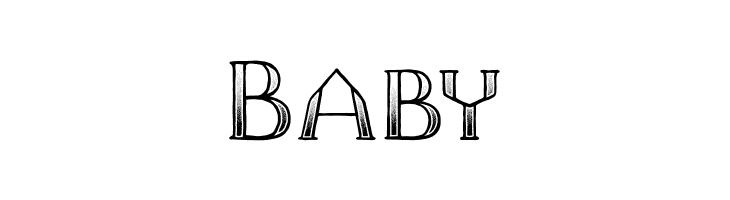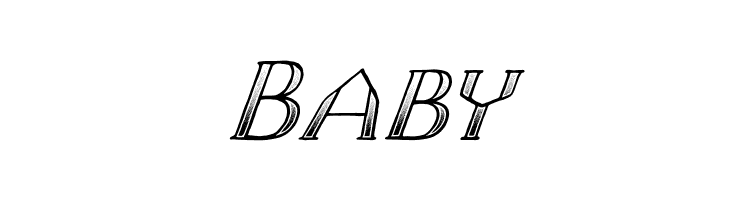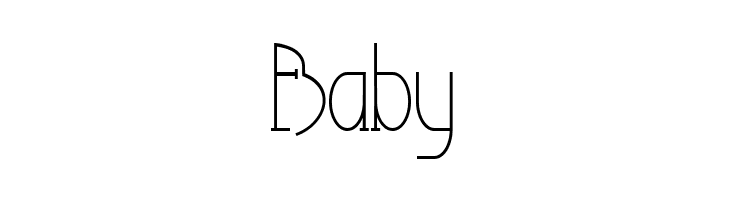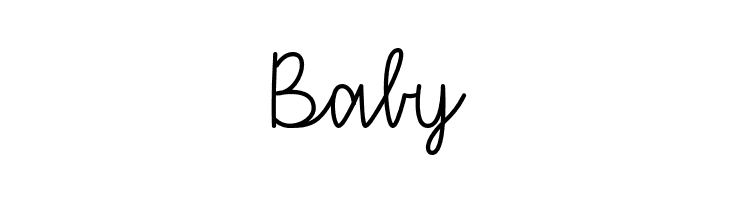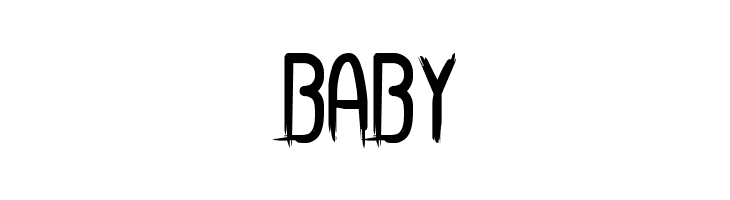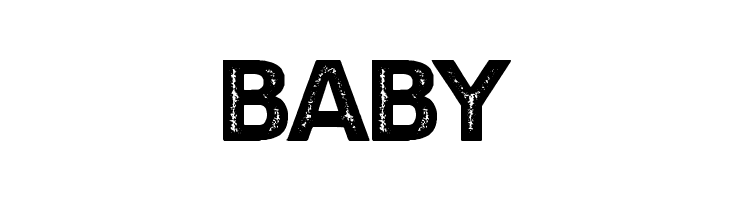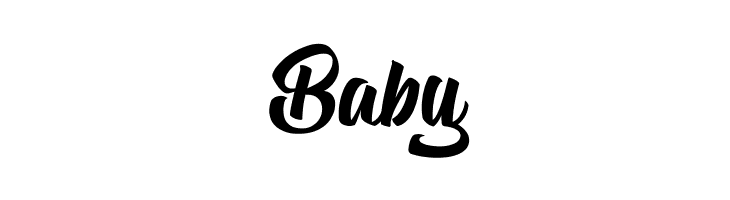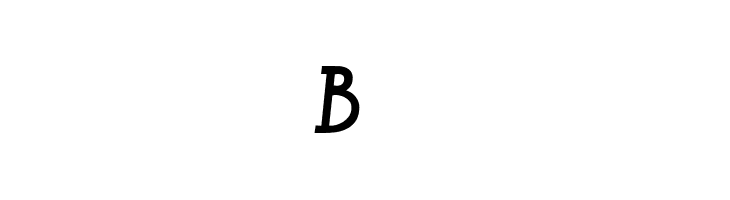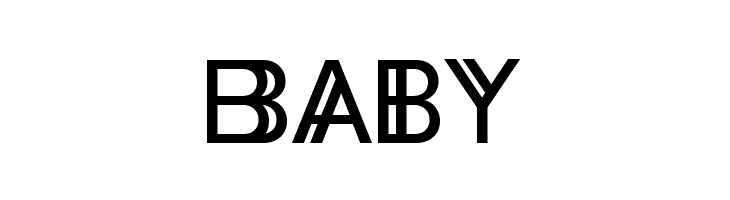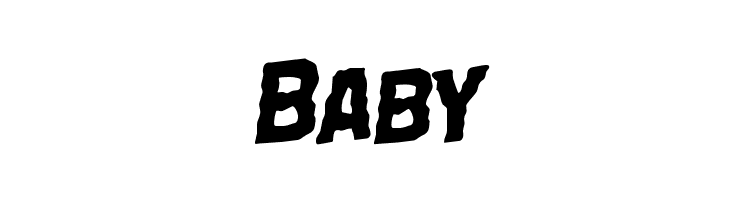
A bold, rugged font with jagged edges and a distressed appearance.
A bold, italicized font with jagged edges and a dynamic, energetic style.
A bold, condensed font with a rough, hand-drawn, and distressed style.
Bold, condensed, and italic with a textured, dynamic style.
A bold, rugged font with jagged edges, perfect for dramatic themes.
A bold, jagged, and expanded italic font with a chaotic and energetic style.
A bold, italic font with dynamic, irregular edges and strong visual impact.
A bold, distressed font with a rugged and dynamic style.
A bold, rugged font with irregular, jagged edges and a distressed look.
A bold, jagged, and heavily italicized font with a chaotic, torn-paper aesthetic.
A bold, distorted, hand-drawn style font with an edgy appearance.
A bold, rugged font with jagged edges and a distressed, hand-drawn style.
A bold, staggered italic font with a dynamic and edgy style.
A bold, staggered font with a dynamic, hand-drawn style.
A playful, casual handwritten font with smooth, rounded letters.
A playful, casual handwritten font with smooth, flowing lines.
A bold, distressed font with sharp, jagged edges and a grunge-like appearance.
A bold, cursive font with elegant loops and a dynamic flow.
A playful, bubbly font with thick, rounded characters ideal for creative projects.
A bold, bubbly, and italicized font with a playful, rounded design.
A bold, distressed script font with dynamic curves and a rugged texture.
A bold, dynamic serif font with a slightly condensed and elegant style.
A modern, playful font with rounded characters and unique curves.
A bold, decorative font with intricate line details and high contrast, perfect for vintage-themed projects.
A bold, decorative font with vintage flair and intricate line work.
A bold, italic font with outlined characters and a dynamic style.
A bold, distressed font with a vintage, rugged appearance.
A dynamic, brush-style handwritten font with an energetic and raw appearance.
A playful, cursive-style font with interconnected, flowing letters.
A whimsical script font with looping, interconnected letters and decorative swirls.
A bold, modern font with geometric lines and sharp angles.